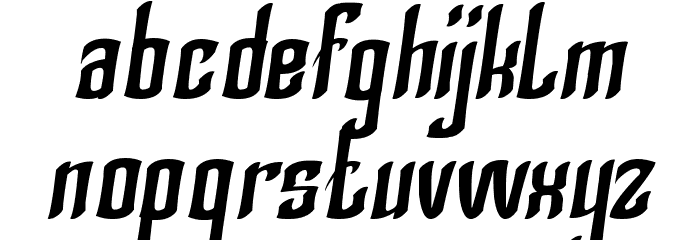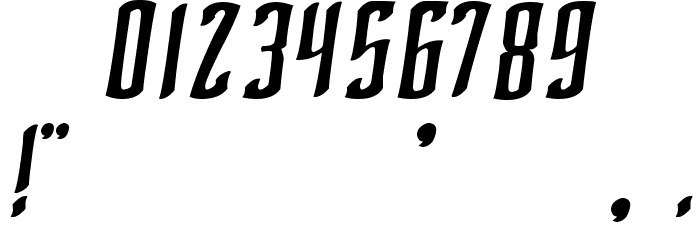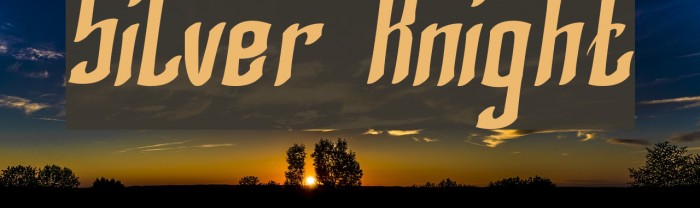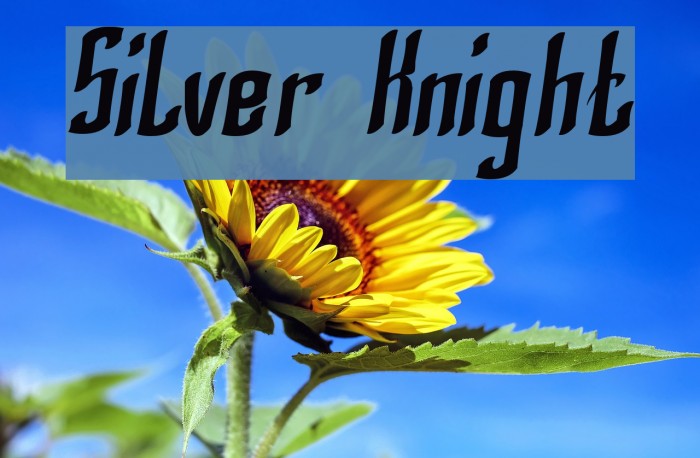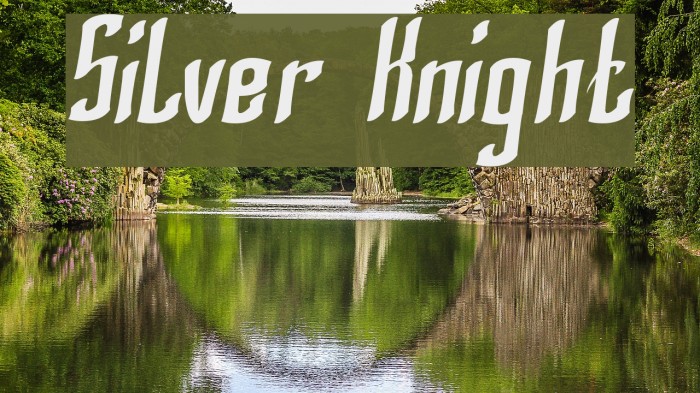
Silver Knight Font
This font features a bold and dynamic design with a distinct slant, giving it a sense of motion and energy. The characters are elongated with sharp edges and a slightly condensed form, creating a striking appearance. The uppercase letters are particularly prominent, with a strong presence that commands attention. The lowercase letters maintain the same energetic style, ensuring consistency across the typeface. The numbers are equally bold, matching the overall aesthetic. Special characters are included, maintaining the font's unique style. This font is ideal for projects that require a bold and impactful statement.
A bold, dynamic font with a slanted, energetic design.
- Proposed Projects: Ideal for sports branding, dynamic posters, and eye-catching headlines.